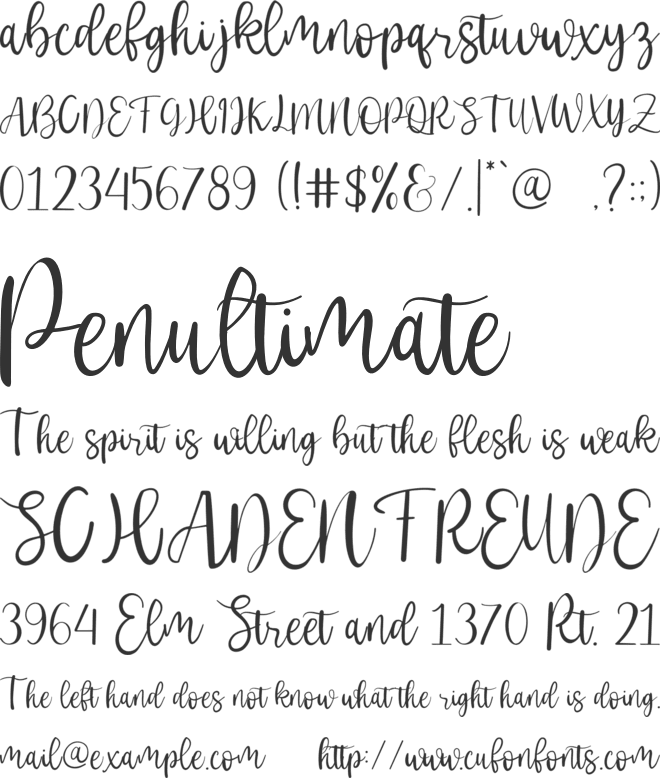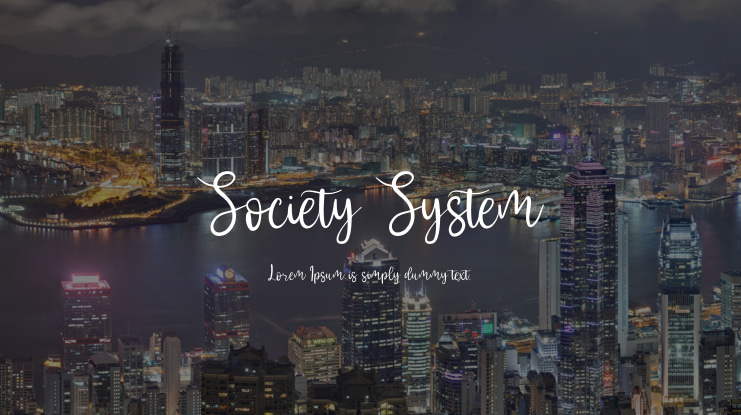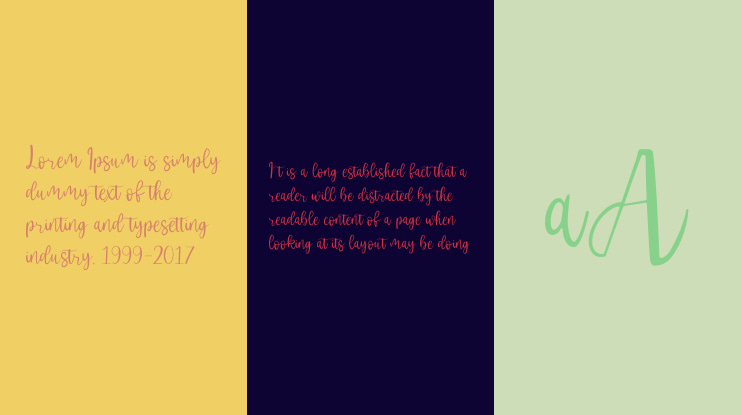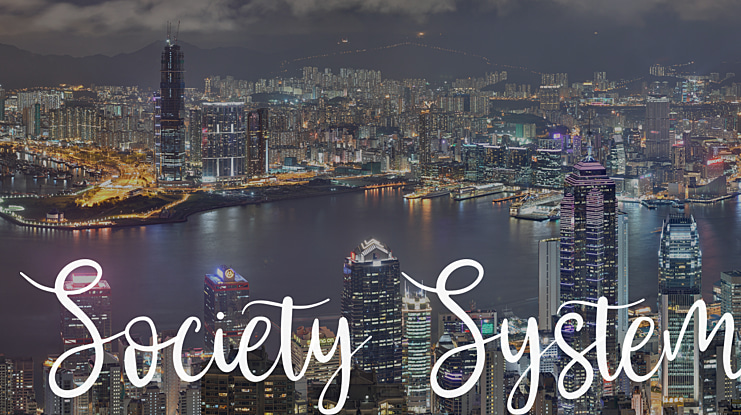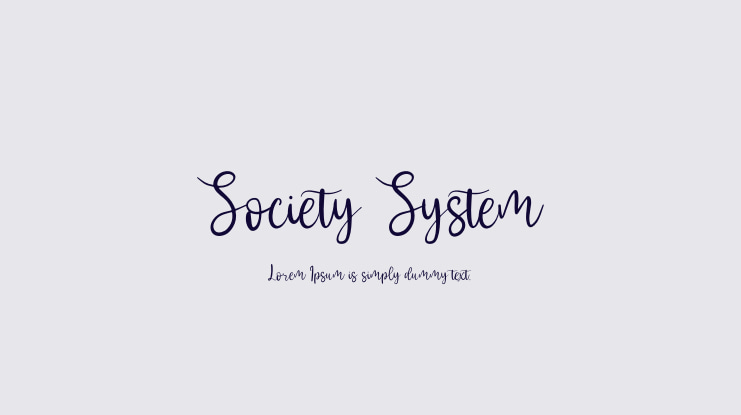
Society System Font
Mochammad Danil Abidin
Society System is a dainty and unique modern script font. This font has very neat kerning. Add this romantic and lovely-looking font to each of your love letters, wedding invitations, or favorite design ideas, and you will be astounded by the outcome. Don't hesitate to contact me if there is any problem with this font.